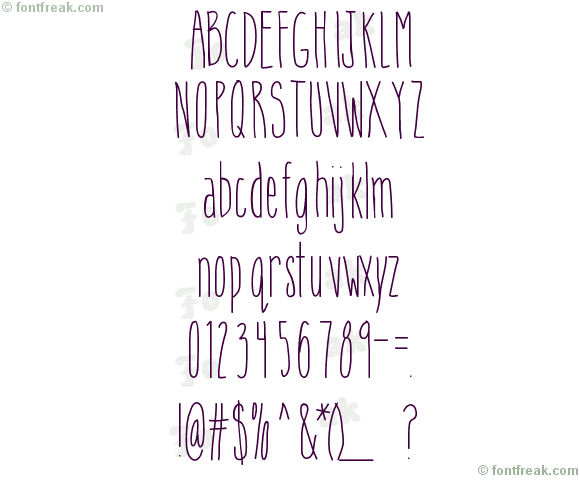
MixGiants
MixGiants, designed by Mikko Sumulong, is a unique display font that captivates with its playful yet sophisticated character. This font leans towards a sans-serif style, featuring a combination of rounded and angular forms that provide a modern aesthetic. The strokes are slightly varied in weight, creating a balanced contrast that enhances readability while adding an artistic flair. The spacing is thoughtfully designed, allowing for comfortable legibility in both large and small settings, making it versatile for various applications.
MixGiants is ideal for a range of creative projects. Its whimsical nature makes it perfect for children's book covers, where it can draw the attention of young readers. Additionally, it's a fantastic choice for branding and logo design, helping small businesses develop a memorable identity. The font also excels in crafting eye-catching restaurant menus, where its distinctive style can enhance the dining experience. Event invitations, particularly for casual gatherings or celebrations, benefit from the friendly vibe that MixGiants delivers.
The target audience for MixGiants includes graphic designers seeking a unique typeface that stands out, small business owners looking to create an impactful brand presence, and content creators aiming for visually engaging materials.
What sets the MixGiants font apart is its ability to blend elegance with a sense of fun, making it a versatile choice for both professional and casual uses. Its unique design elements invite creativity, ensuring that any project featuring this font leaves a lasting impression. For those interested in exploring its charm, a MixGiants font free download is available, allowing users to incorporate this delightful typeface into their work effortlessly.